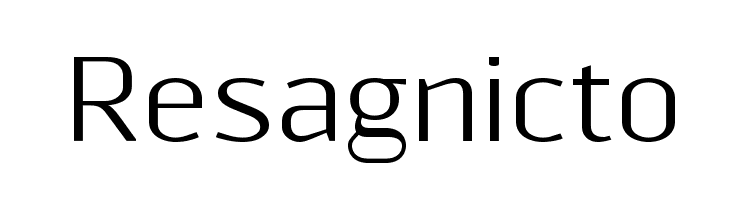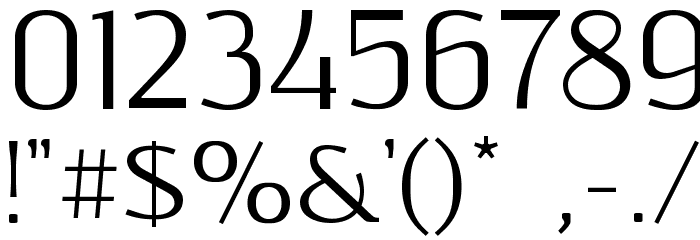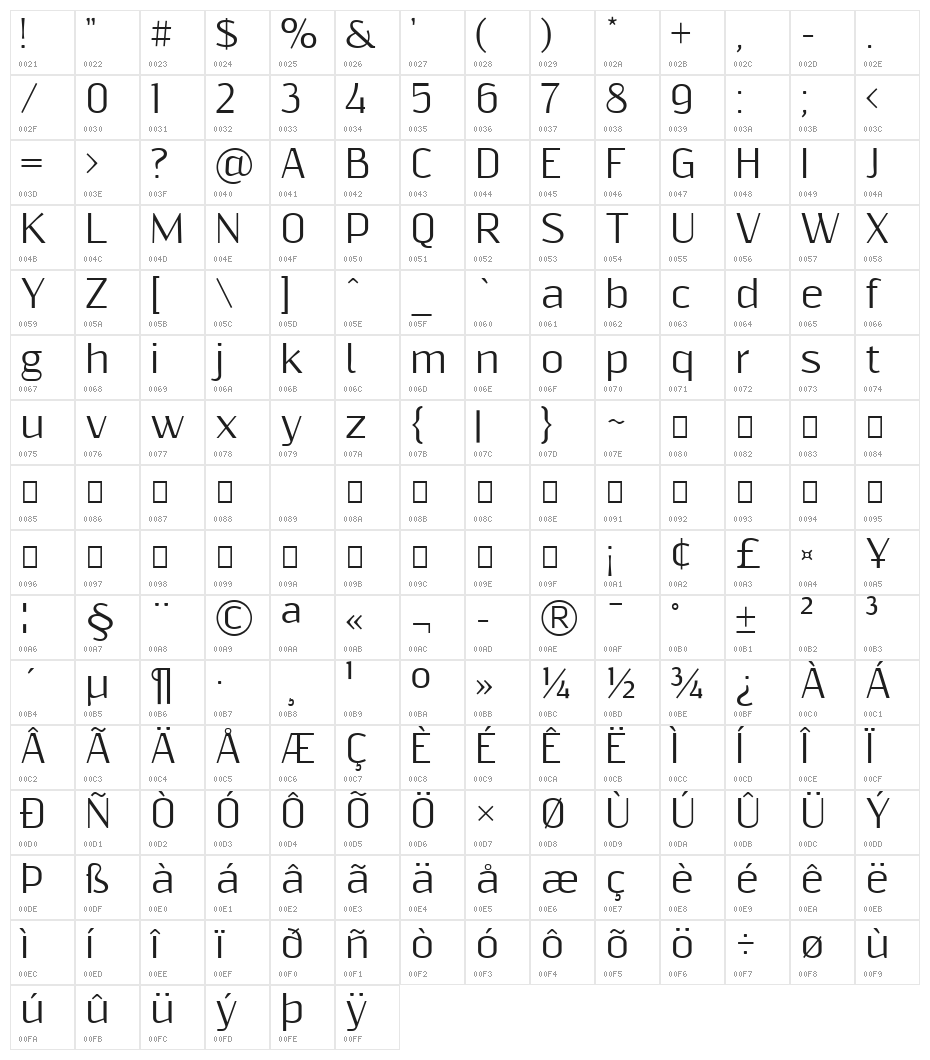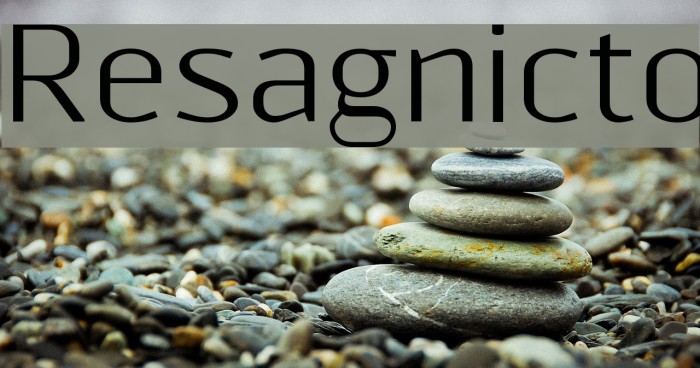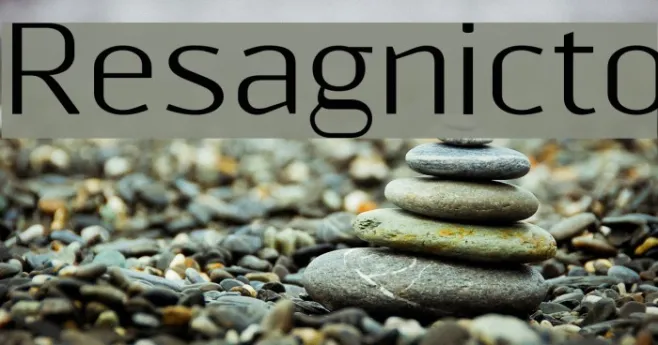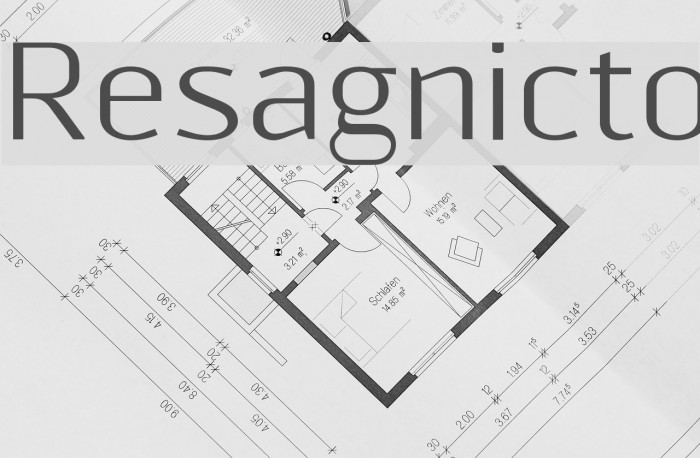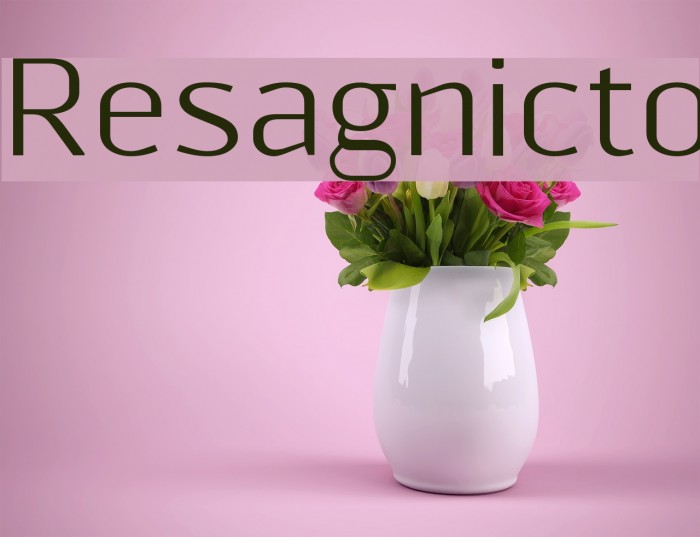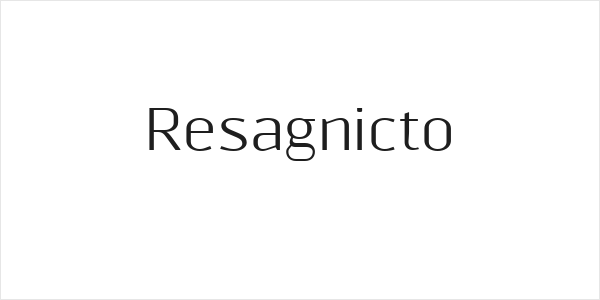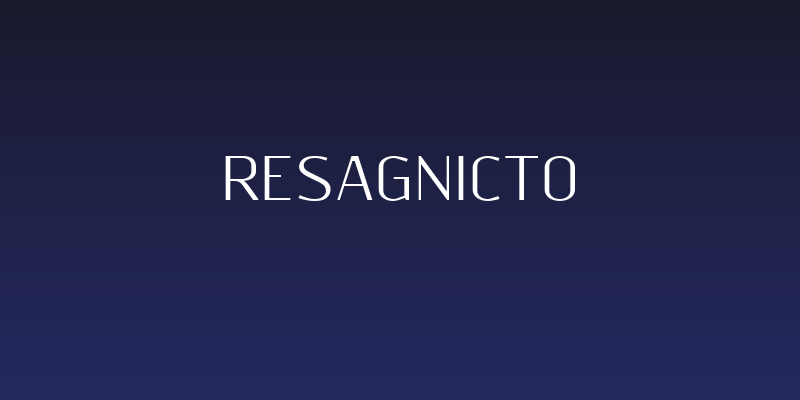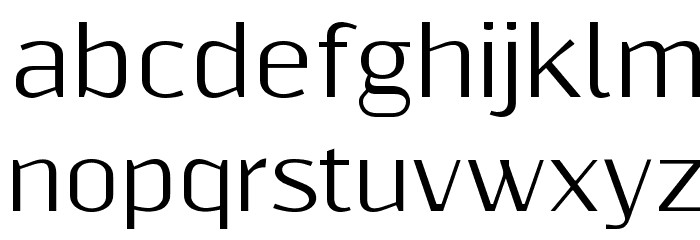
Resagnicto Font
Resagnicto Description
This font features a clean and modern sans-serif design, characterized by its geometric shapes and uniform stroke widths. The uppercase letters are tall and slightly condensed, giving a sleek and professional appearance. The lowercase letters maintain a consistent height, contributing to the font's readability and balance. Numerals are clear and distinct, with a contemporary style that complements the overall design. Special characters are well-integrated, maintaining the font's cohesive look. Its simplicity and clarity make it suitable for a wide range of applications, from digital interfaces to print media.